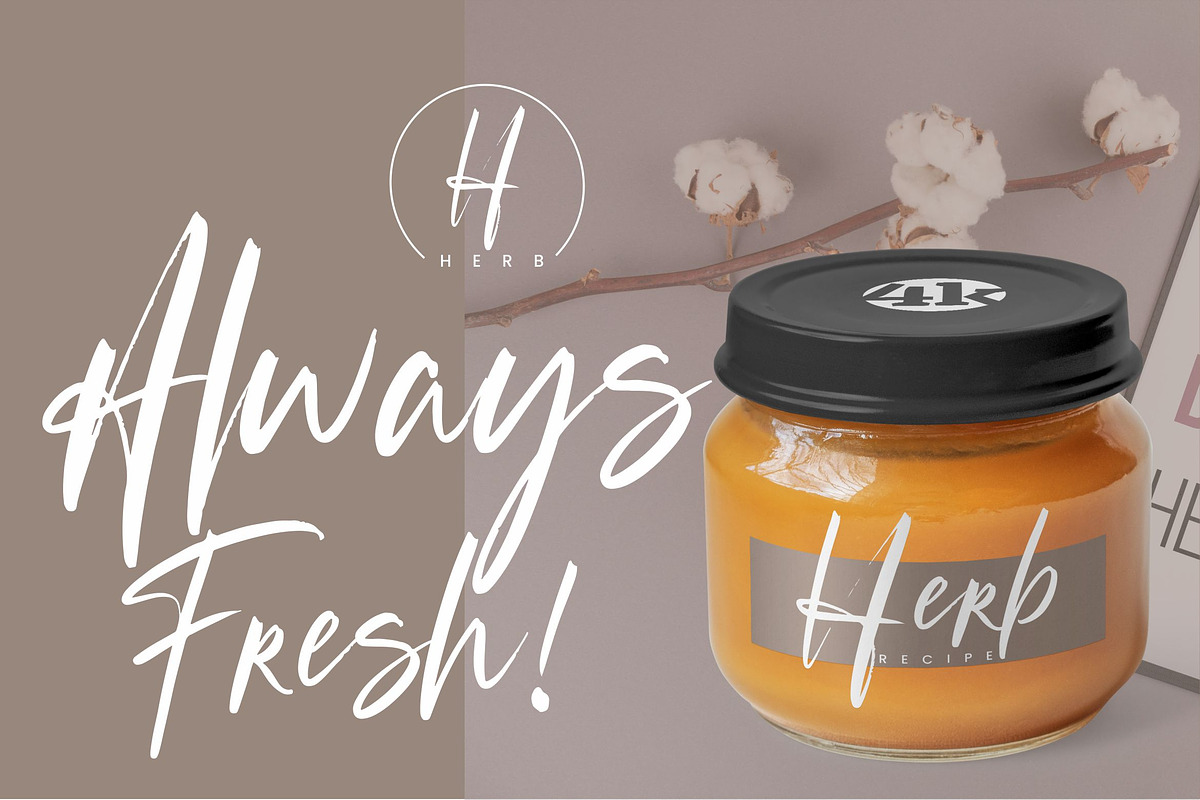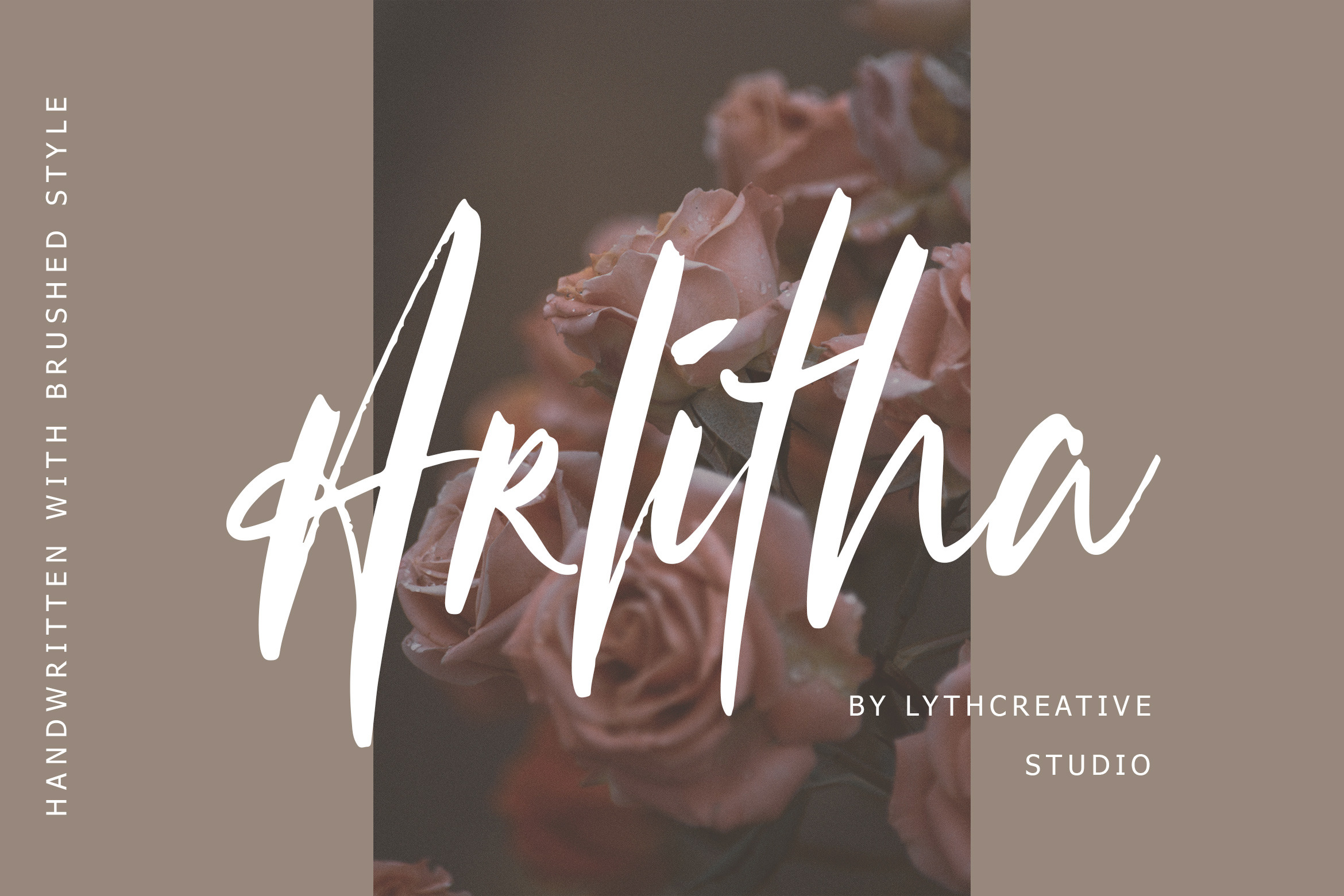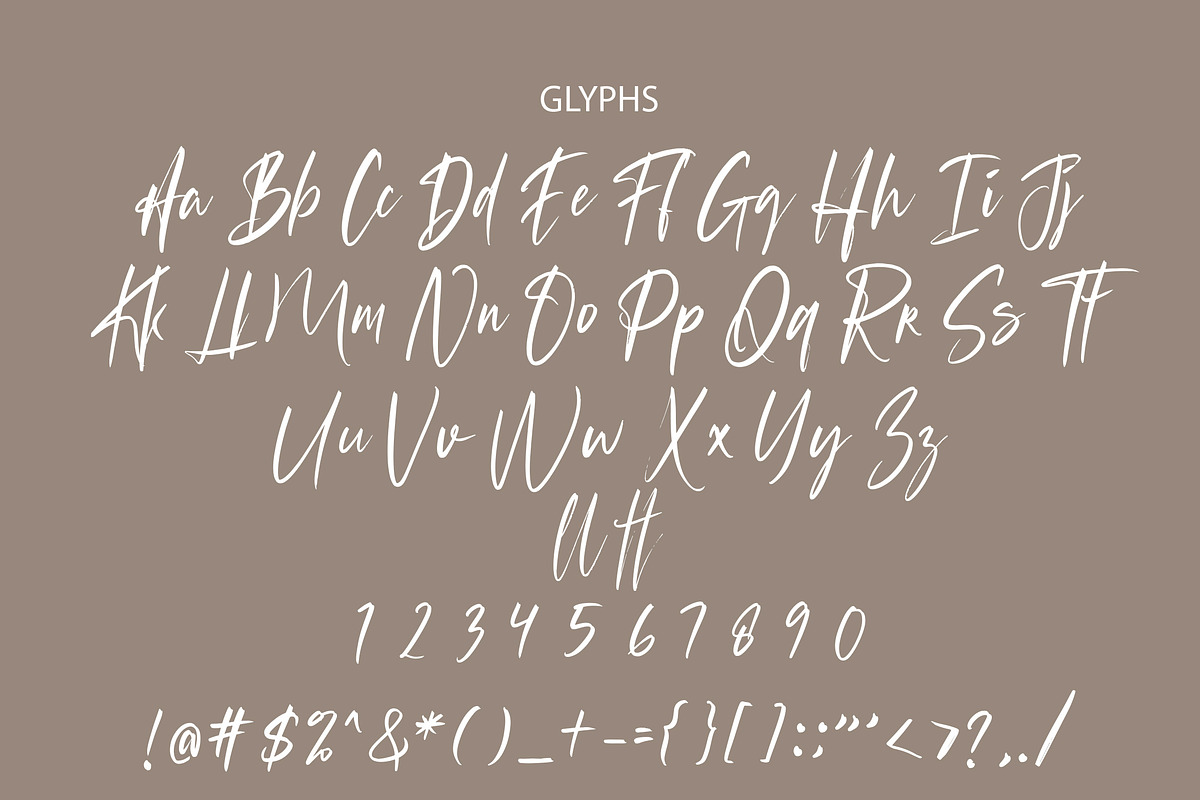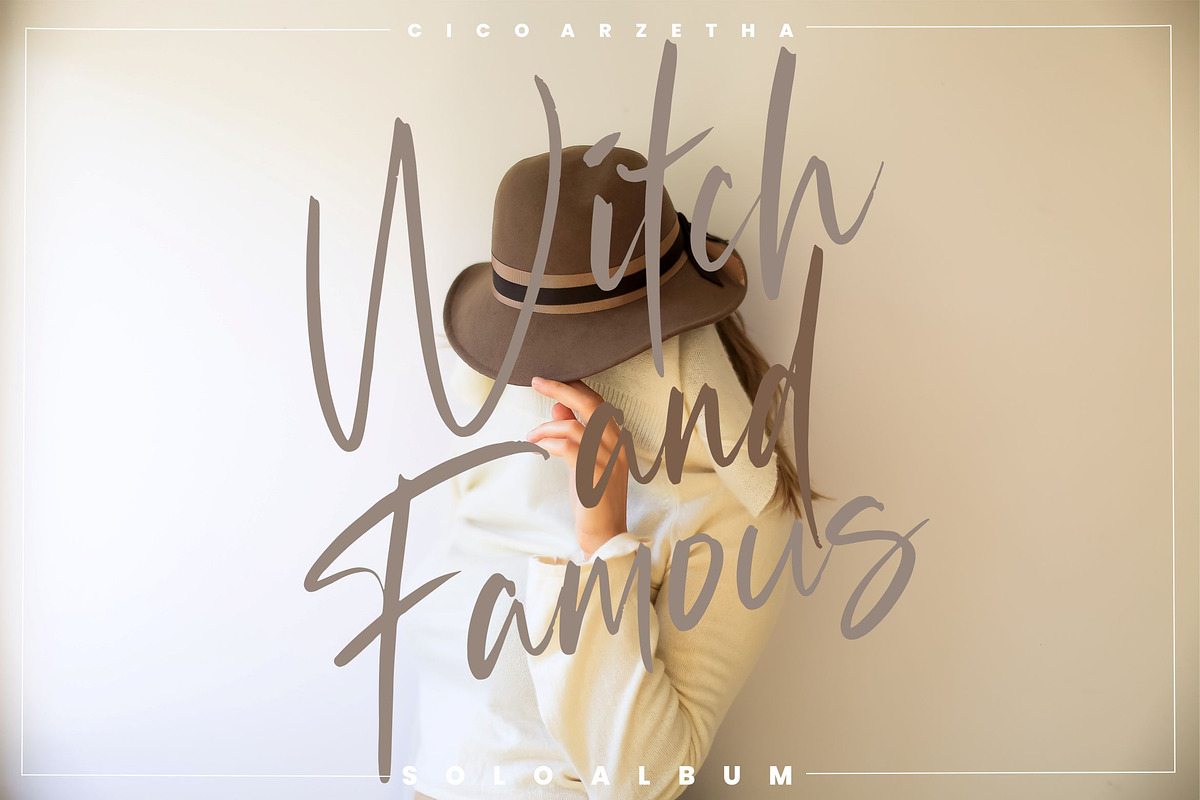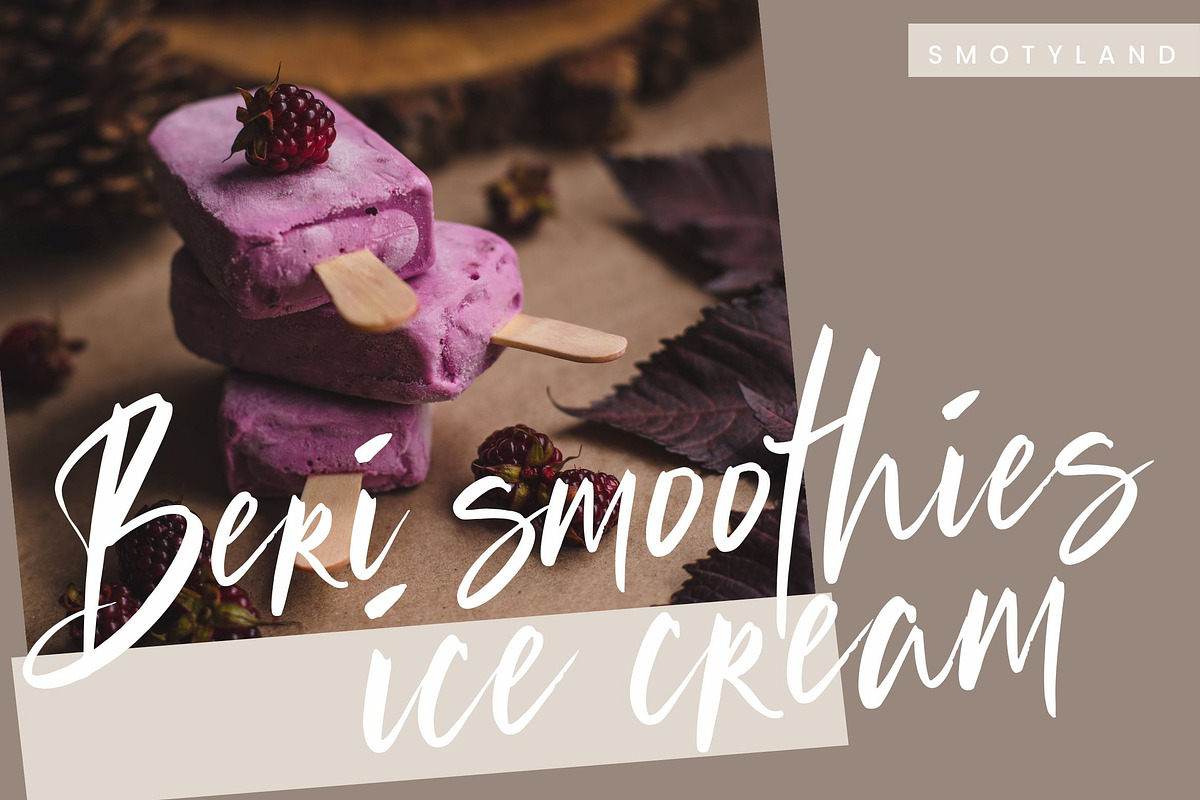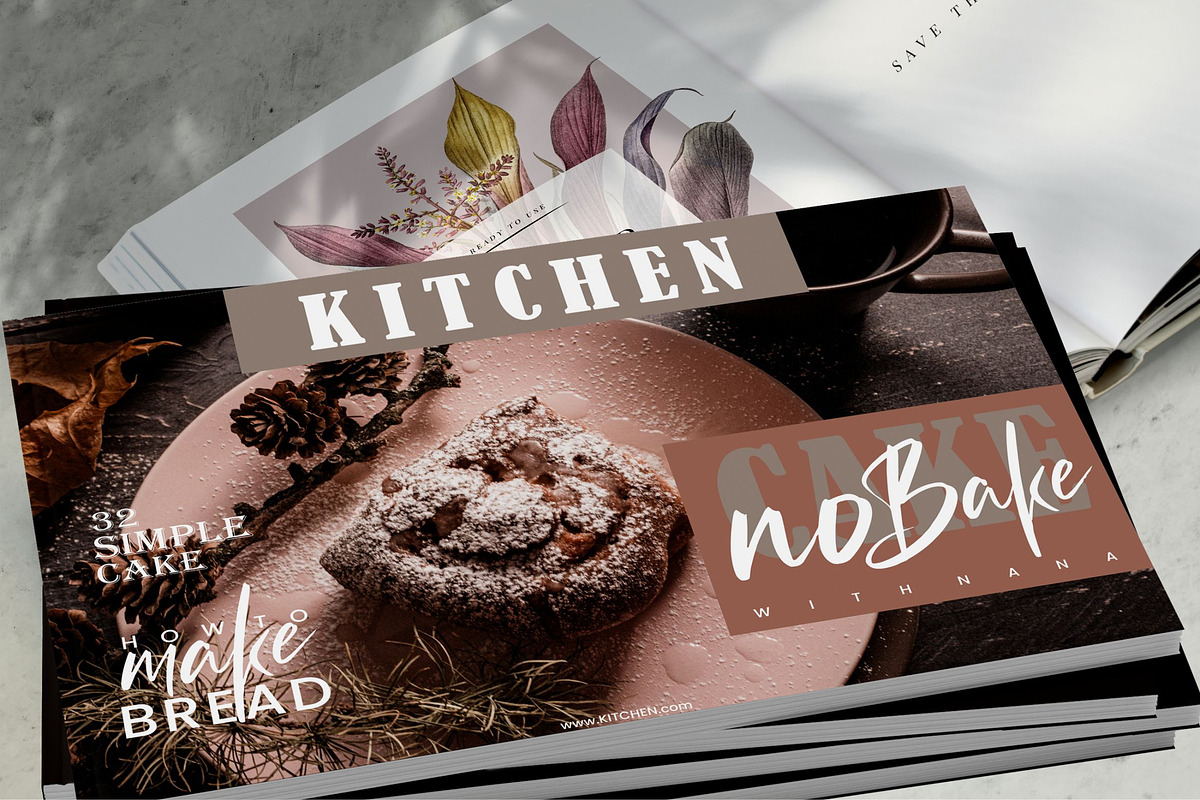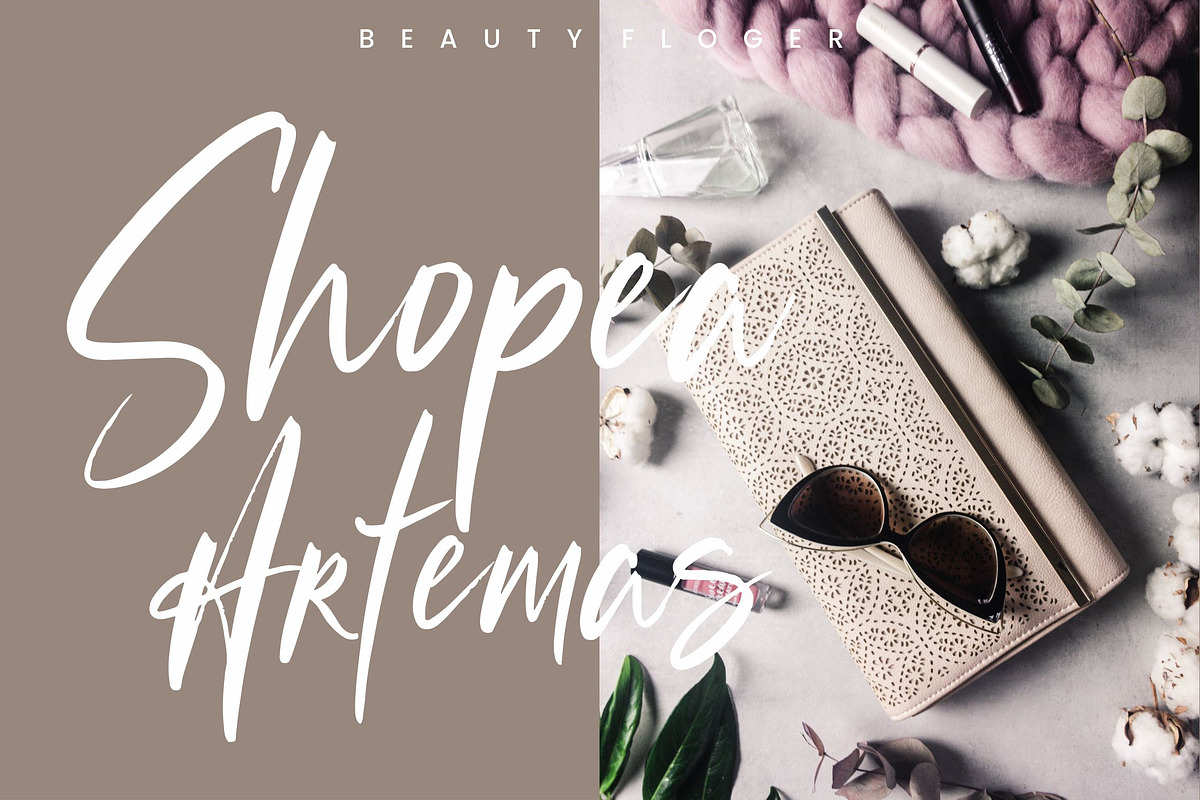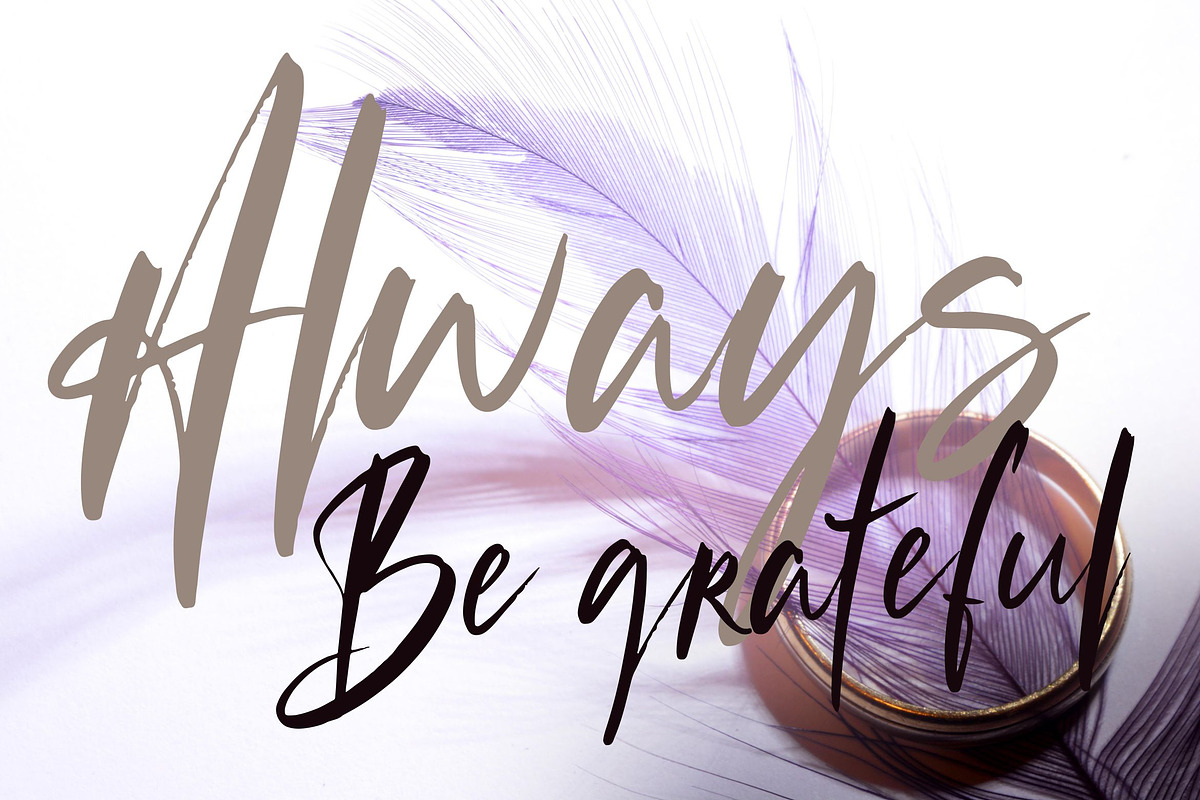
Arlitha Brushed Font
Arlitha is an exciting handwritten font with brush style. This beautiful script can make your text appear elegant, luxurious, and modern!
This font perfect for branding projects, logo, book cover design, tshirt designs, social media posts, advertisements, product packaging, product designs, label, watermark, invitation, stationery and any projects